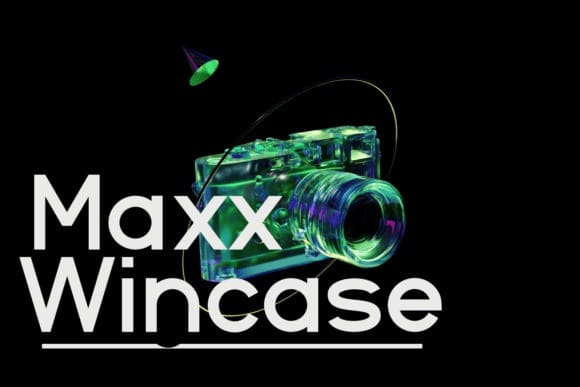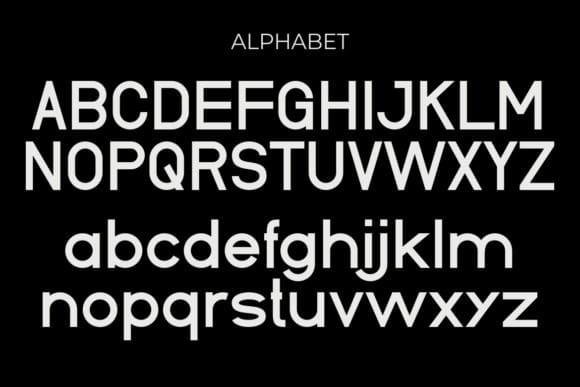
Yagami Font
Yagami Font is a bold and assertive sans serif font. No matter the topic, this font will be an incredible asset to your fonts’ library, as it has the potential to elevate any creation.